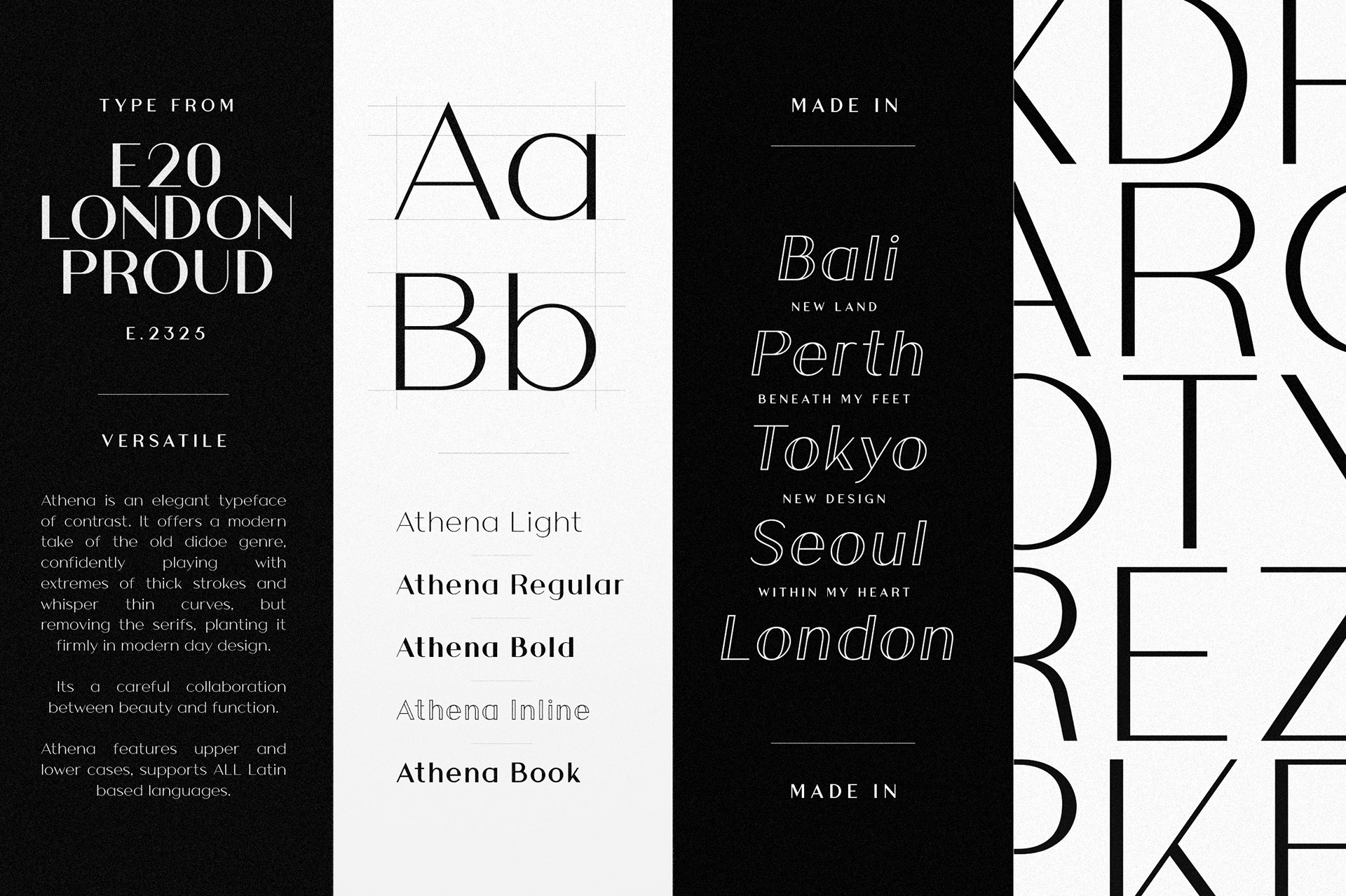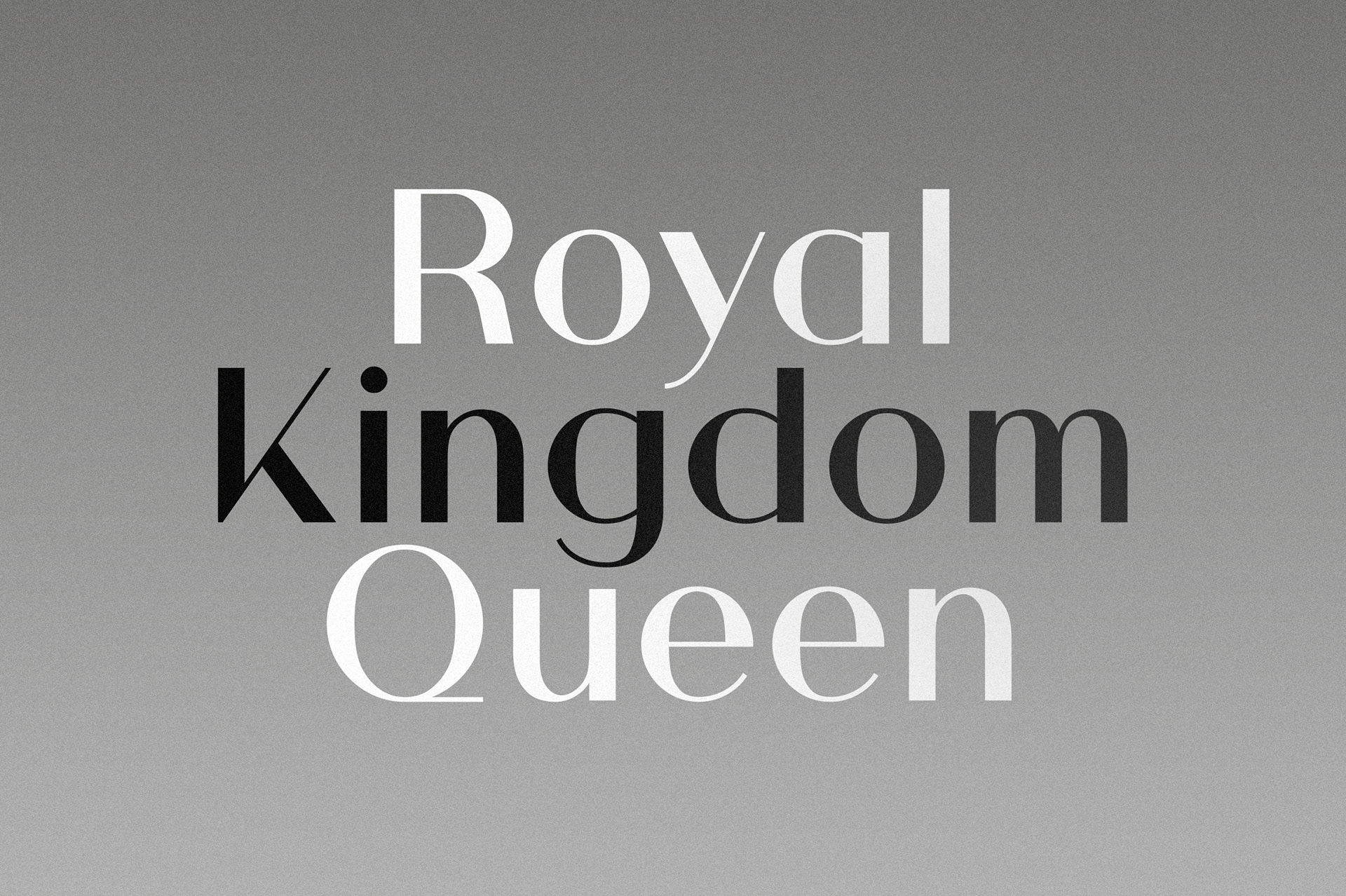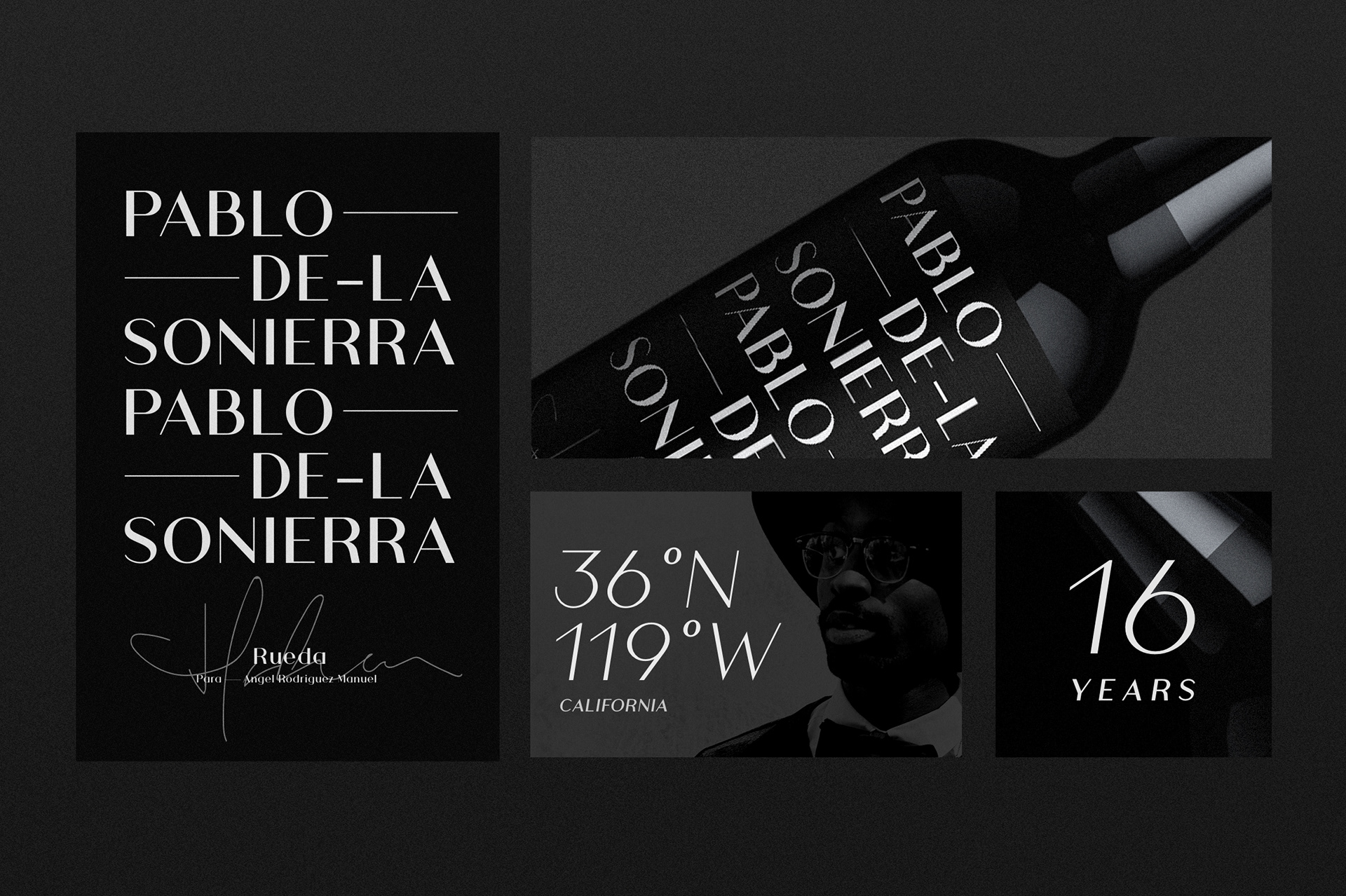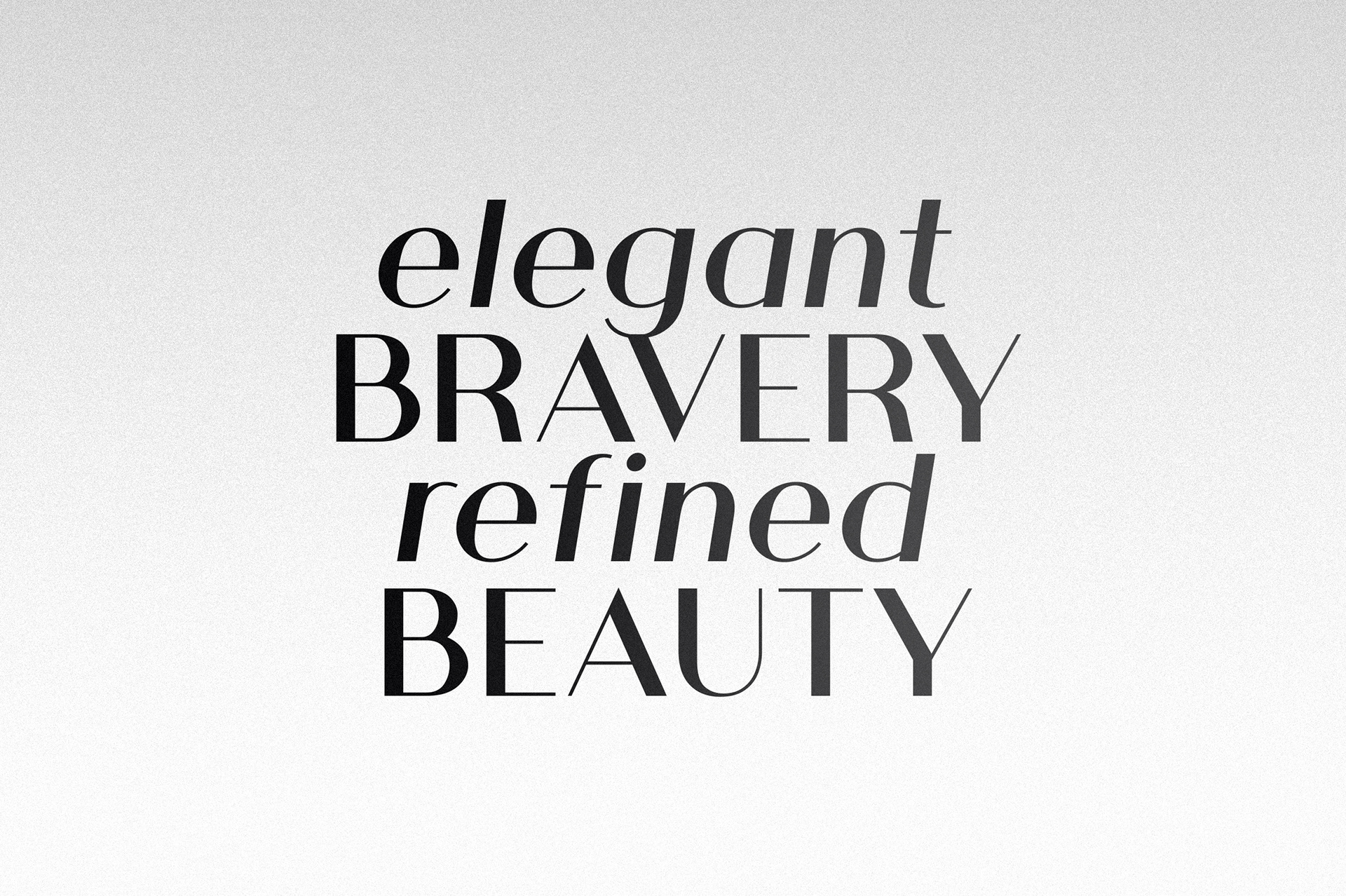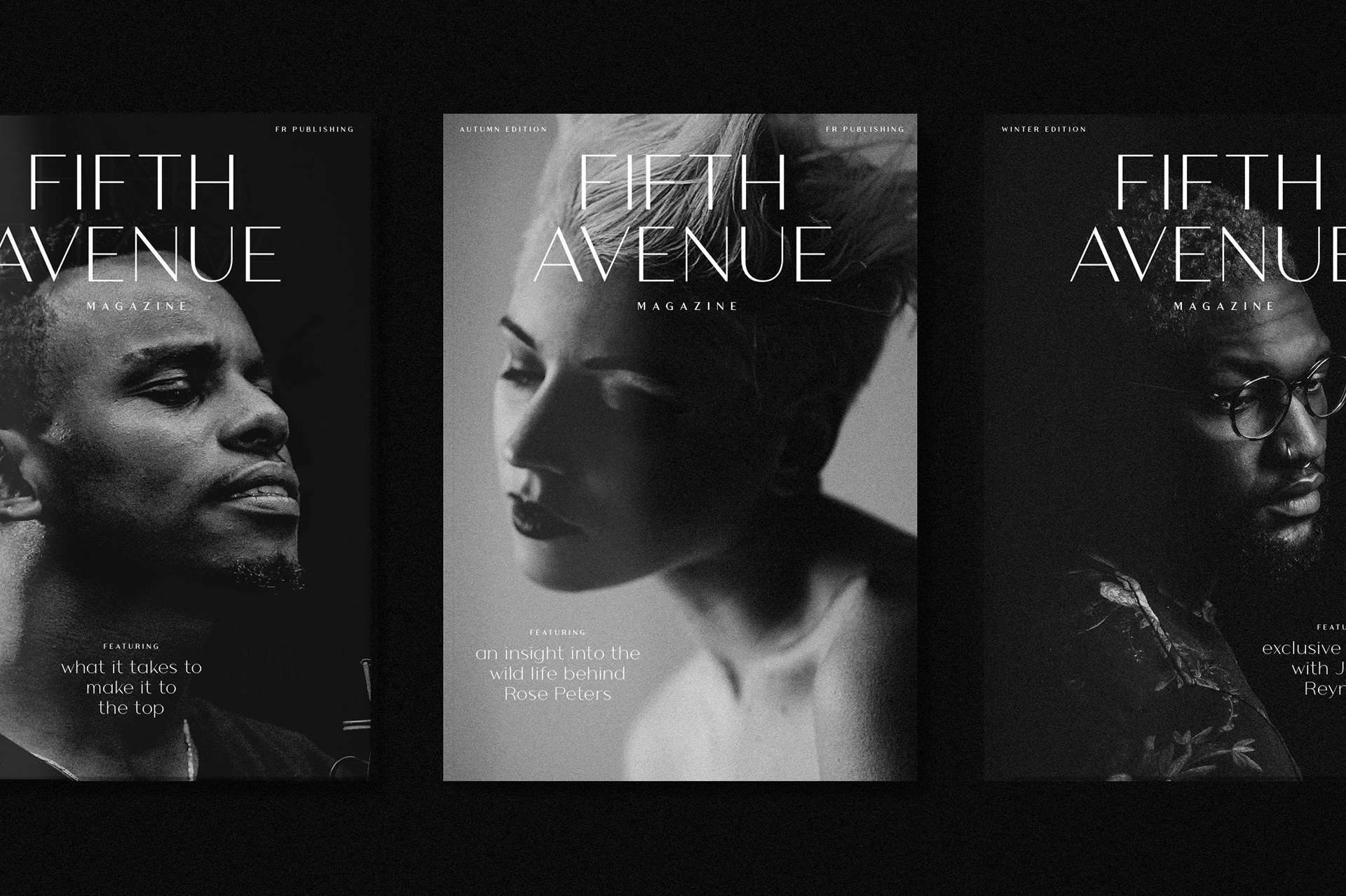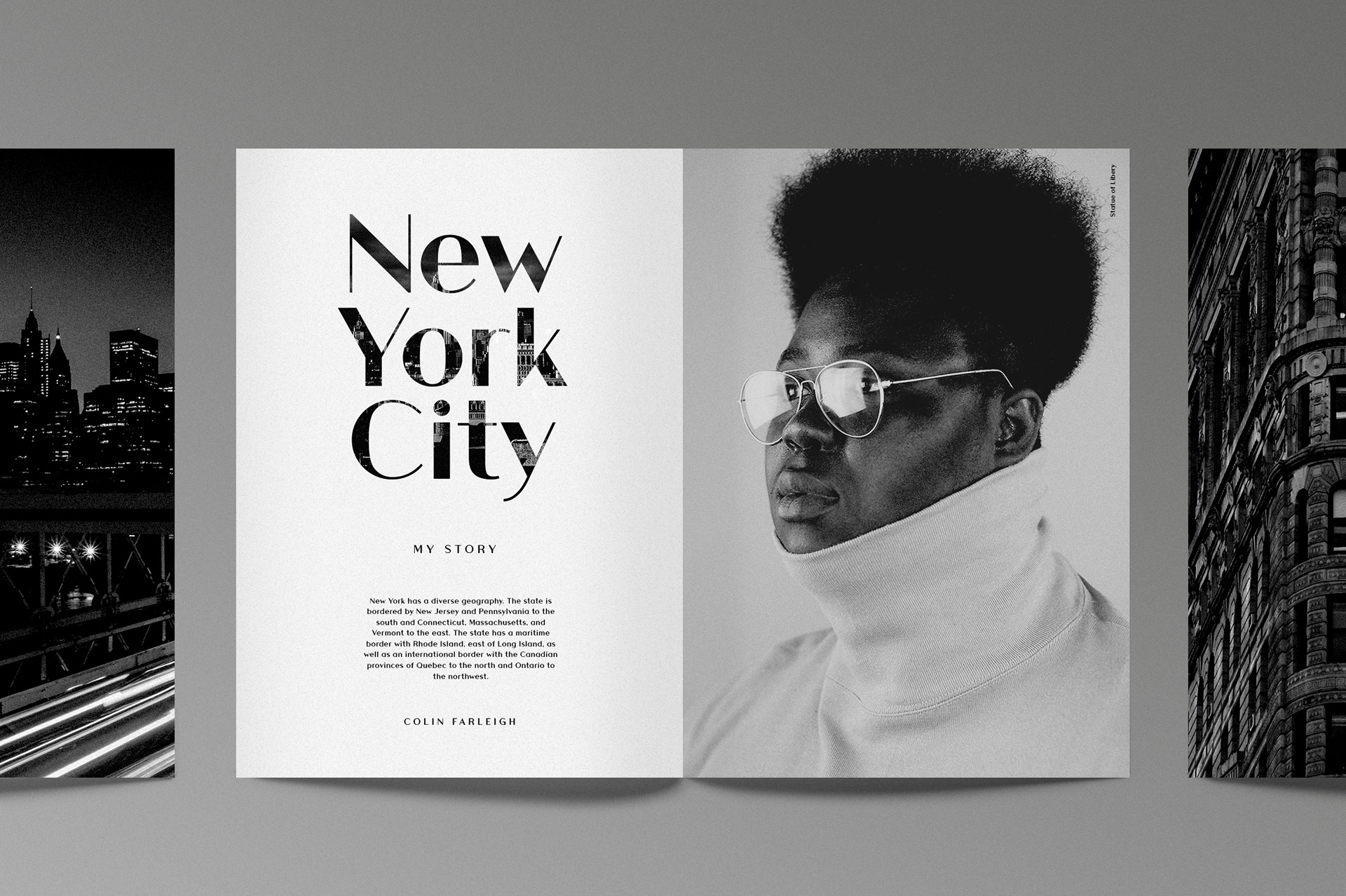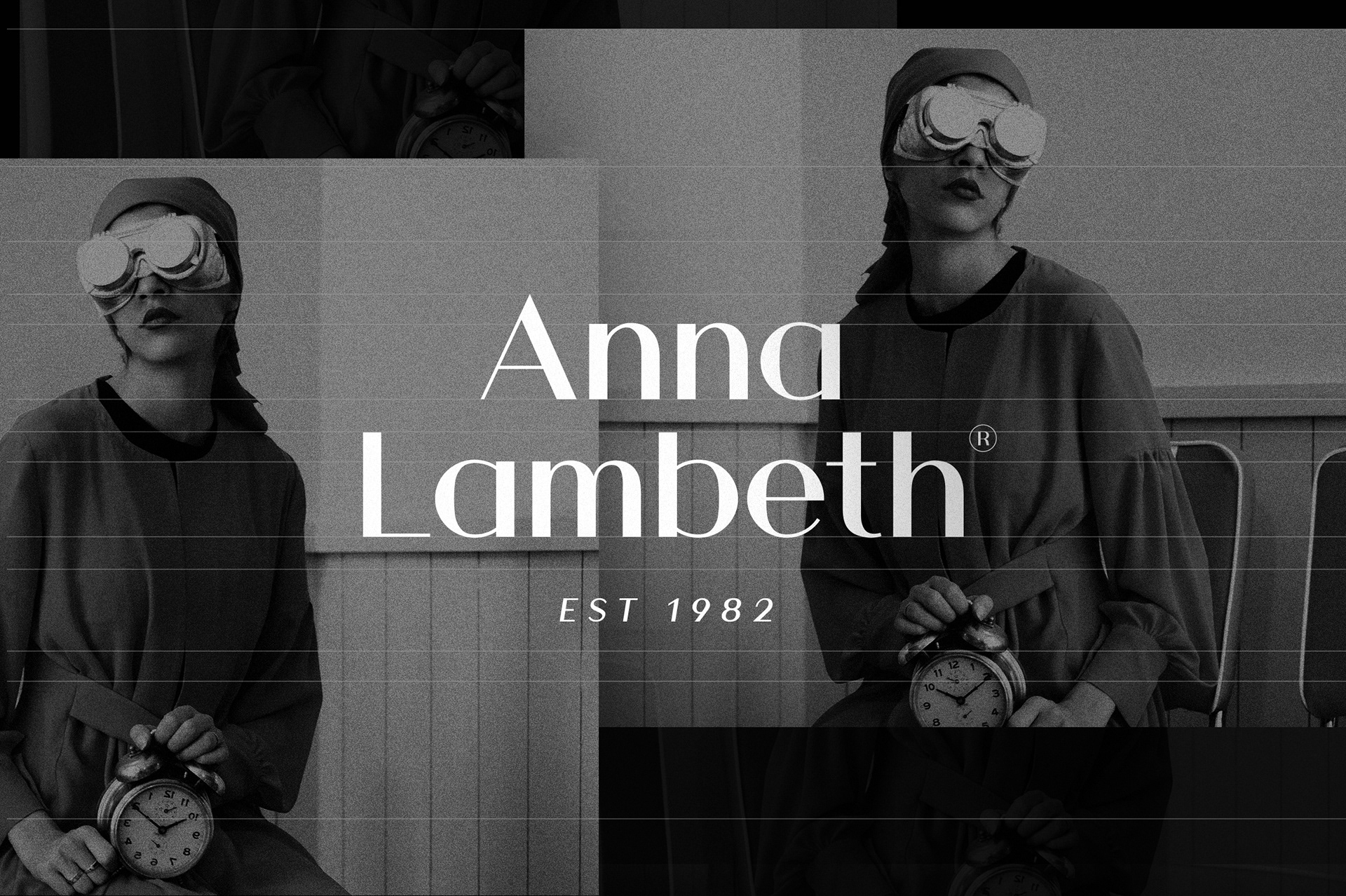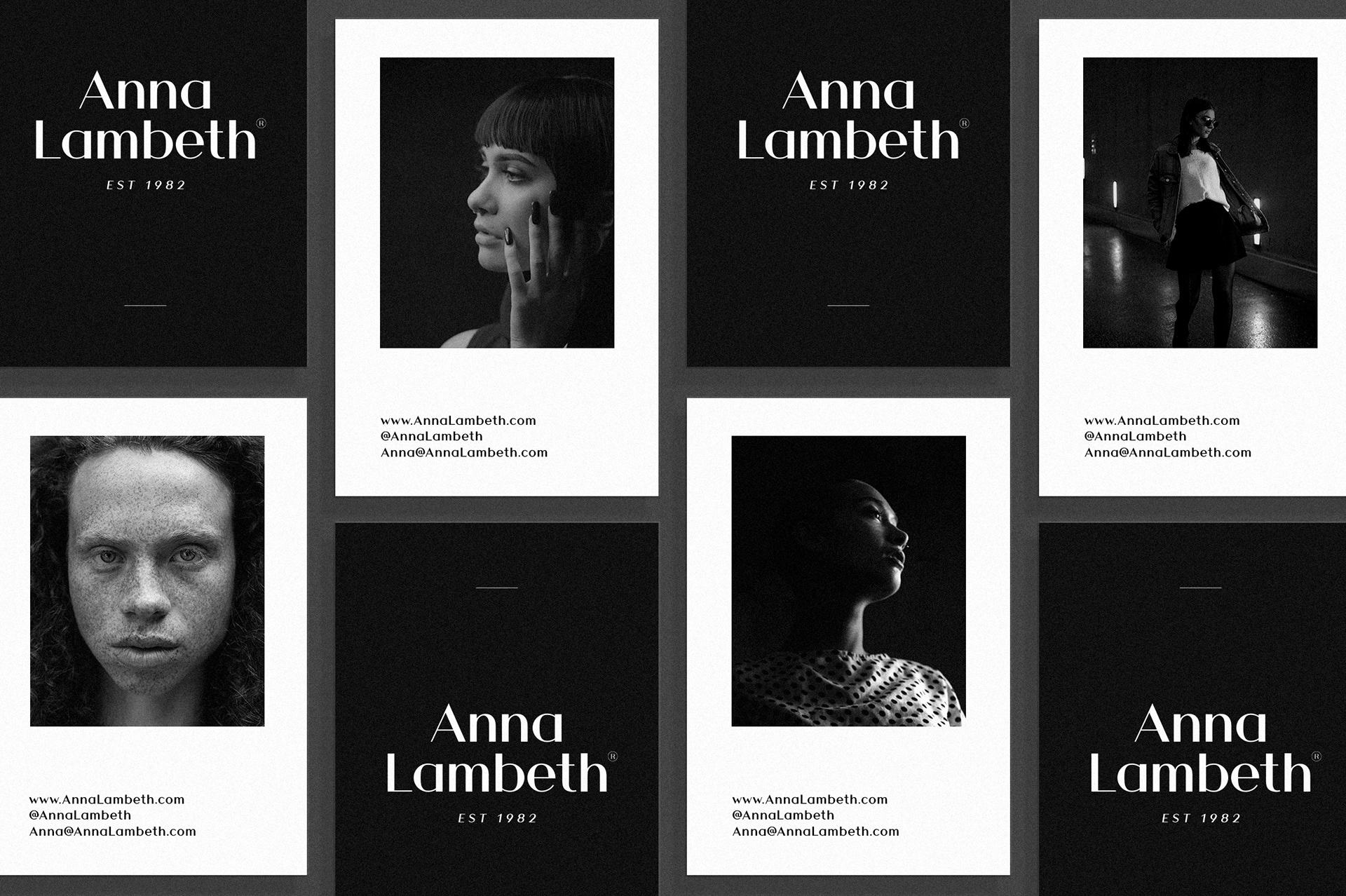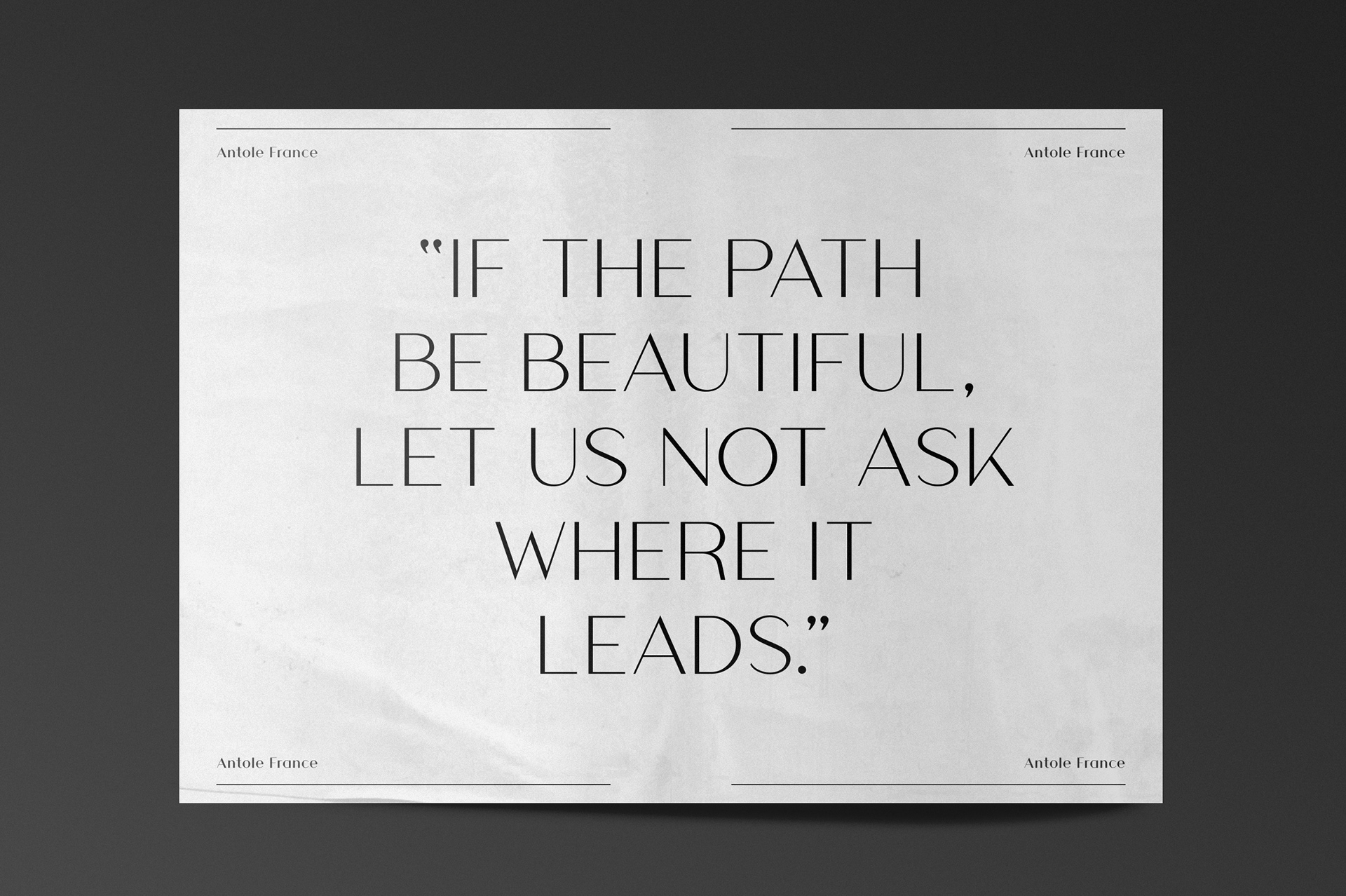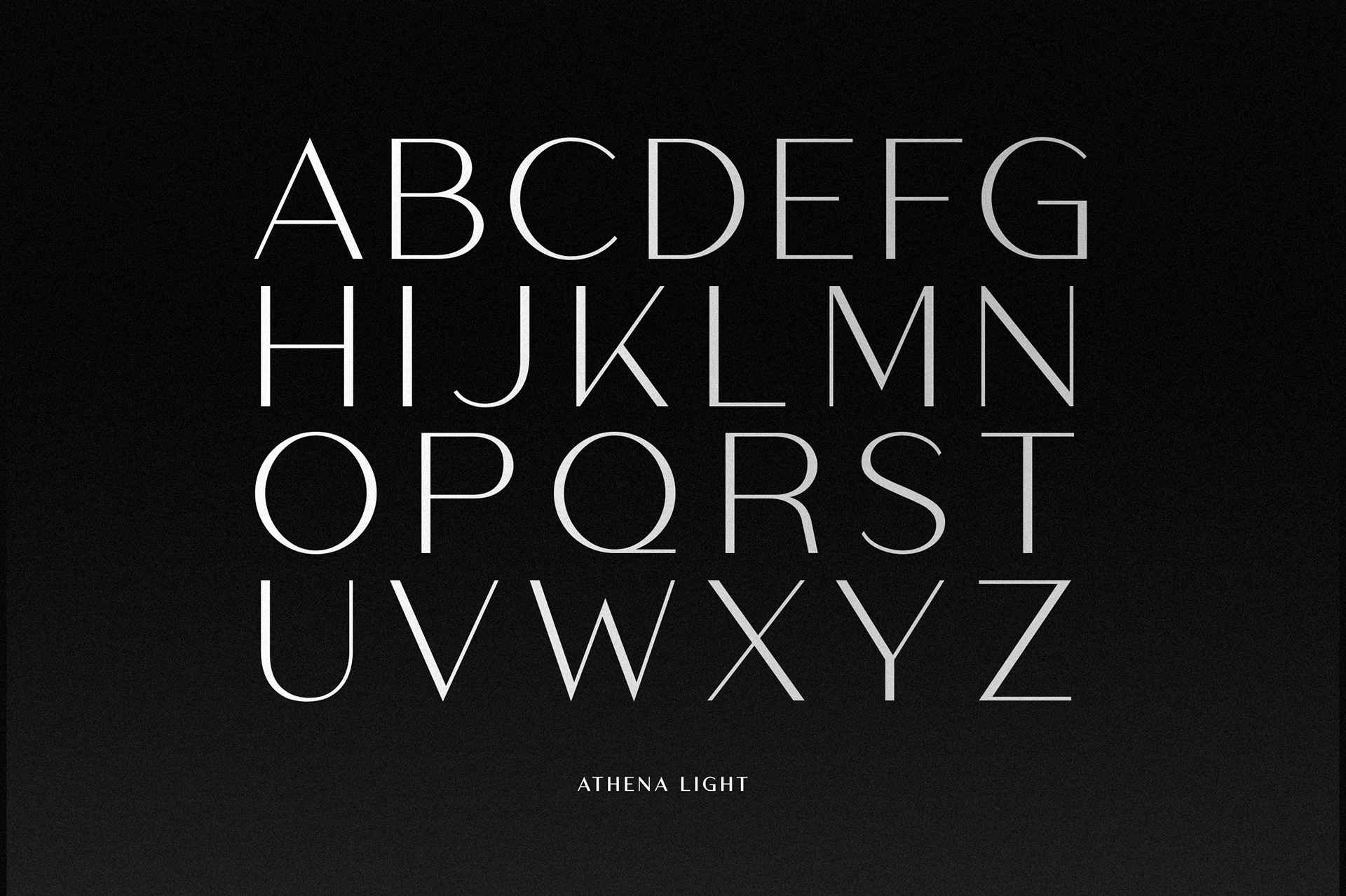
Athena is an elegant typeface of contrast. It offers a modern take of the old didoe genre, confidently playing with extremes of thick strokes and whisper thin curves, but removing the serifs, planting it firmly in modern day design. Its a careful collaboration between beauty and function. Athena features upper and lower cases, supports ALL Latin based languages. It hosts four weights, two outlines and six italics, each offering something different and all crafted to work harmoniously together. The font family includes 10 fonts in three styles: Fine - Whisper thin, slight contrast, - quietly beautiful - Designed to offer subtle sophistication to both large type and body copy. Logos / Magazines / Invites / Branding Athena Light Italic Display - High contrast, bold - exudes confidence - Designed to be striking and elegant, with its contrasts looking especially pleasing in really large sizes. Headlines / Fashion / Magazines / Branding / Film / Posters Athena Regular Athen